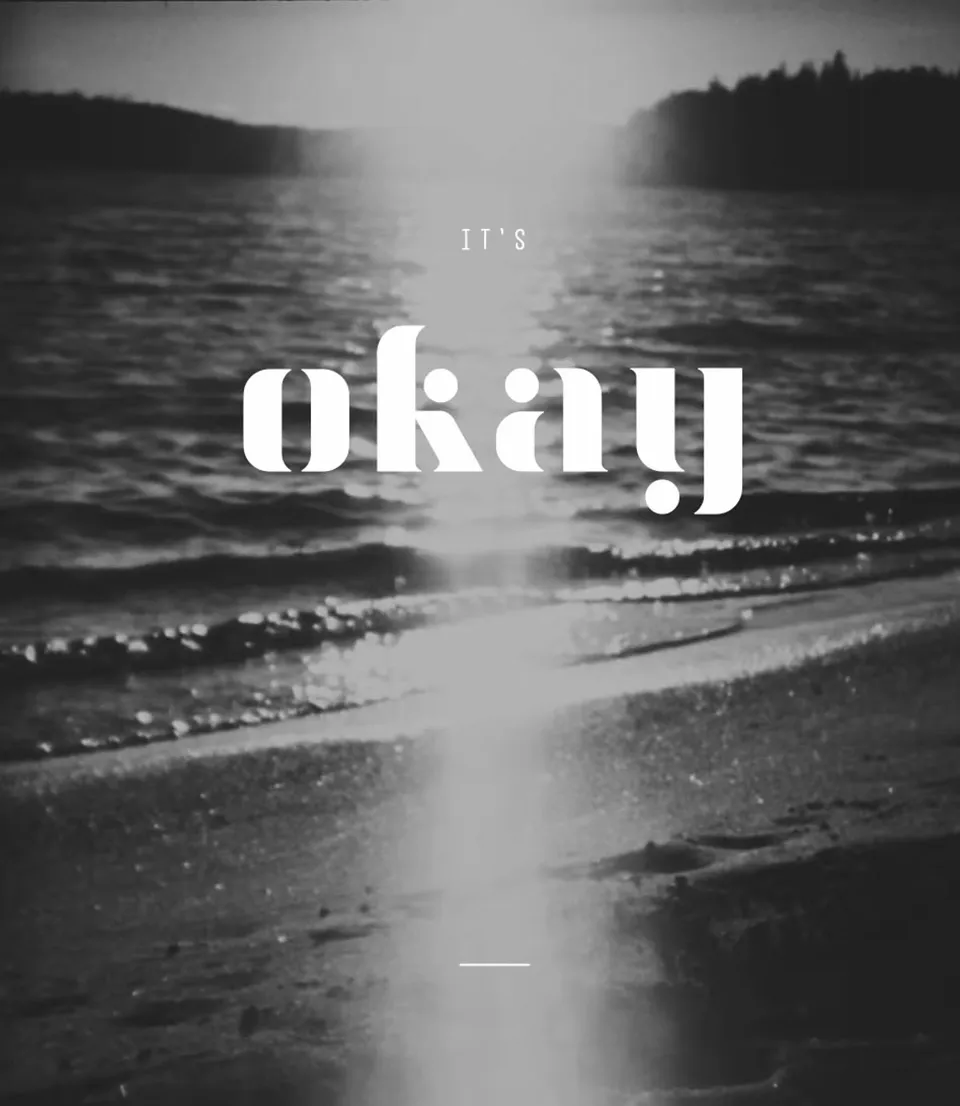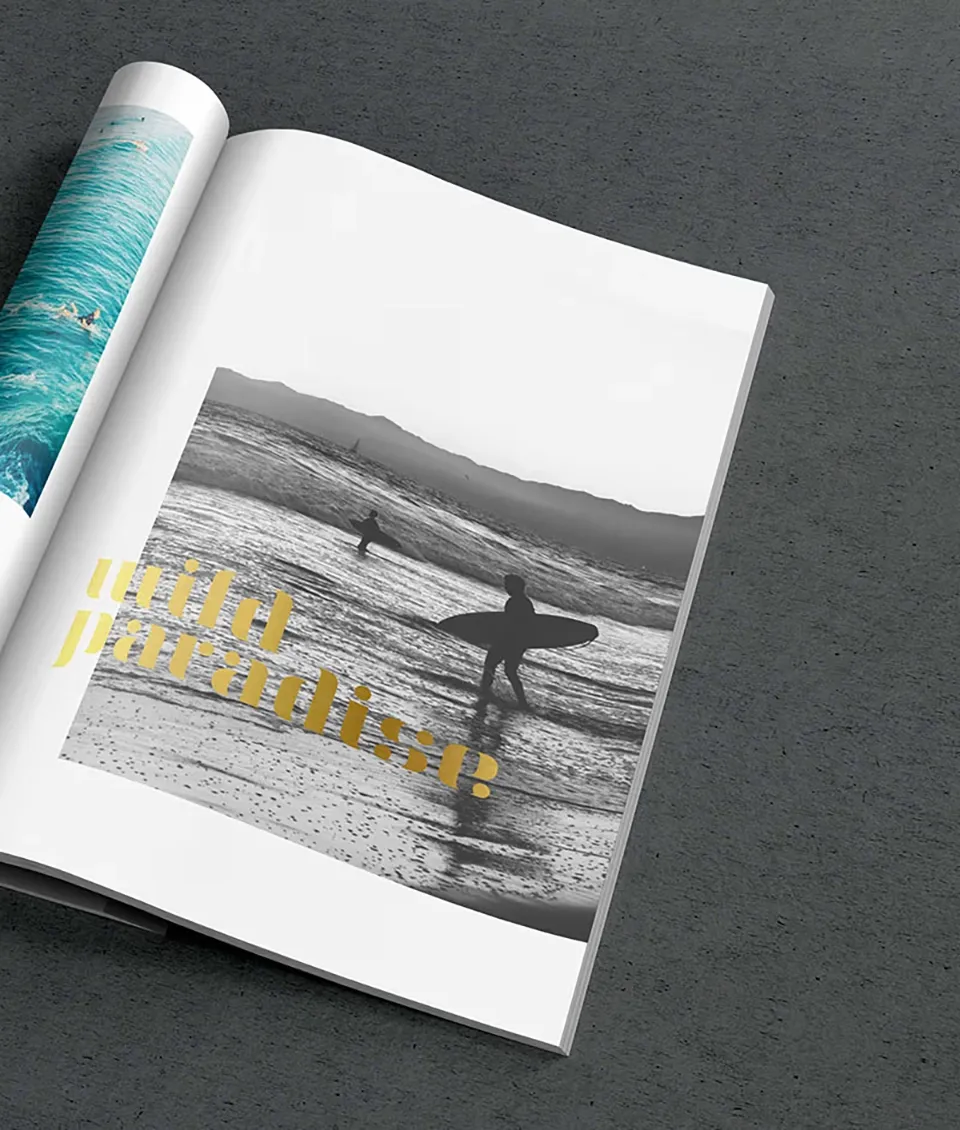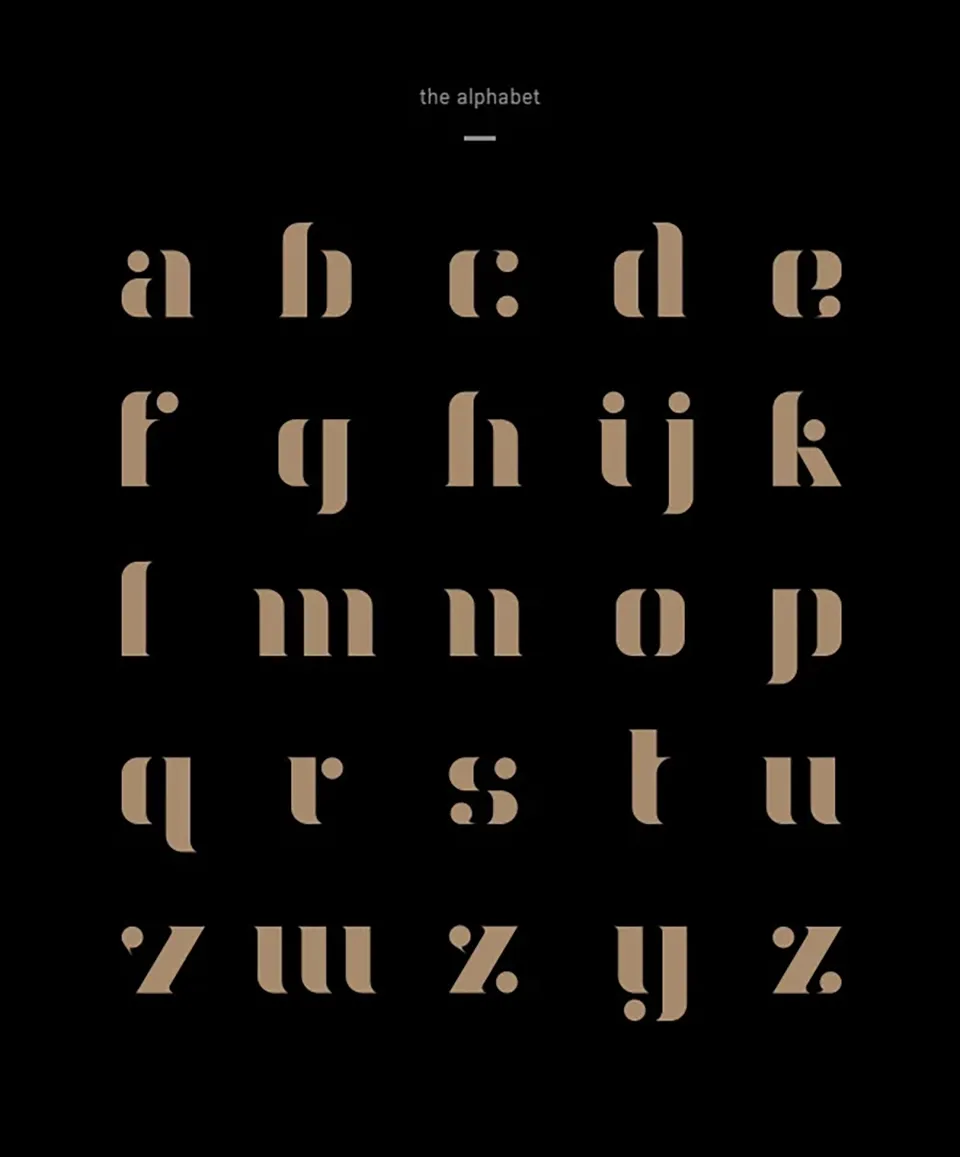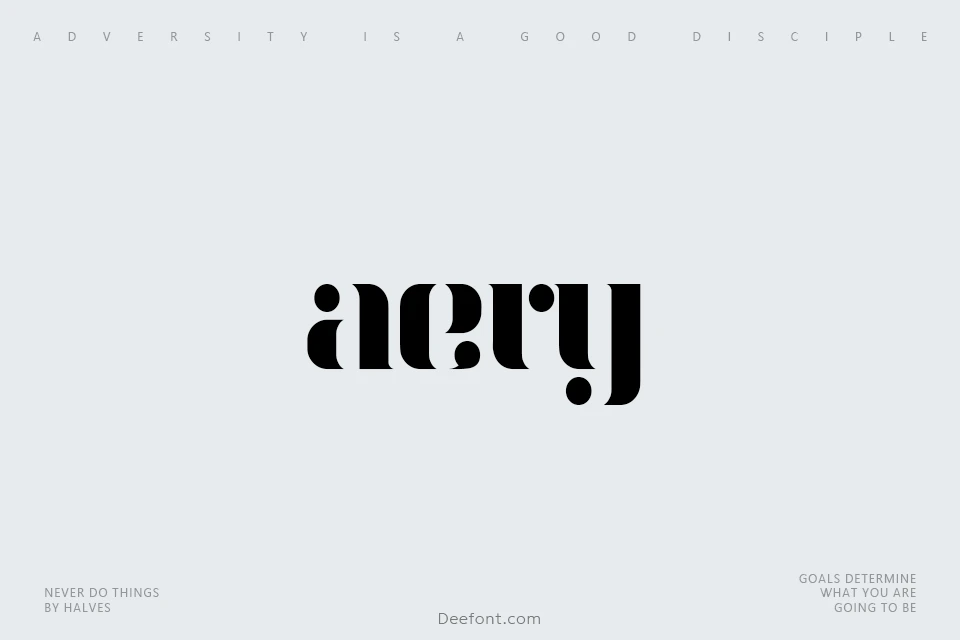
AERY Font
AERY Font is a Bodoni-inspired lowercase statement font designed by Marie-Michelle Dupuis. Combining bold glamour with a unique modern flair, AERY Font stands out with its striking shapes and charismatic style, making it perfect for statement designs, branding, and creative projects that demand attention.